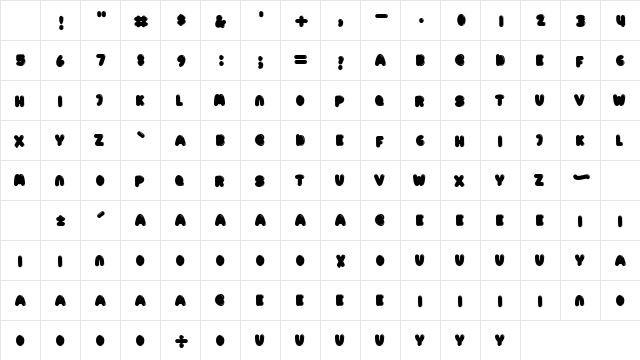
Hello Vanilla is a composed and adaptable typeface that performs quietly and consistently across a wide range of design contexts.
Pro Tip: Use Hello Vanilla in both headline and body roles to test its range before committing to a single application.